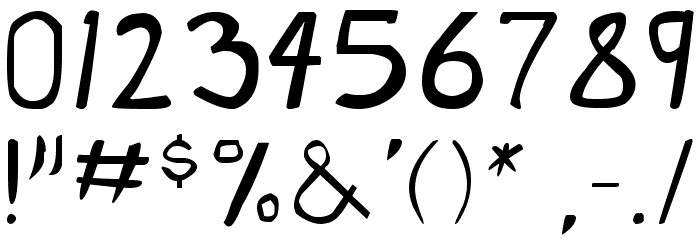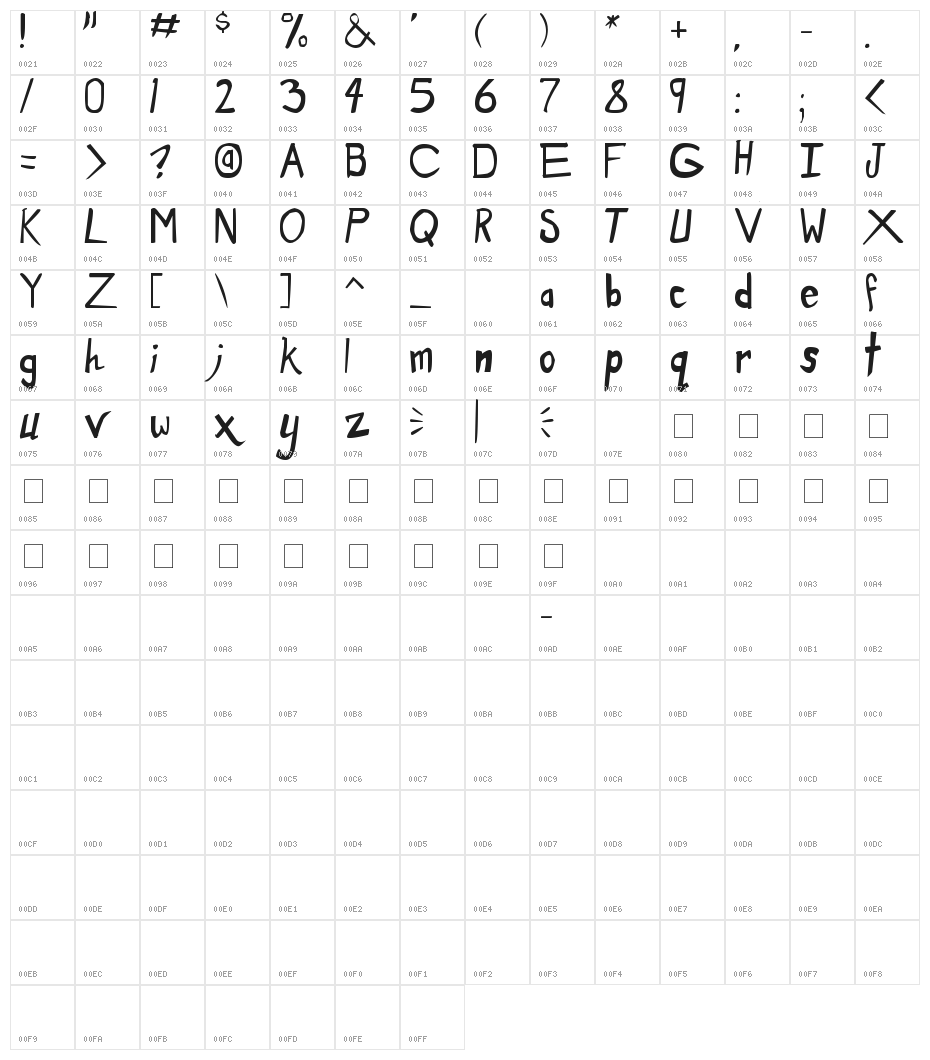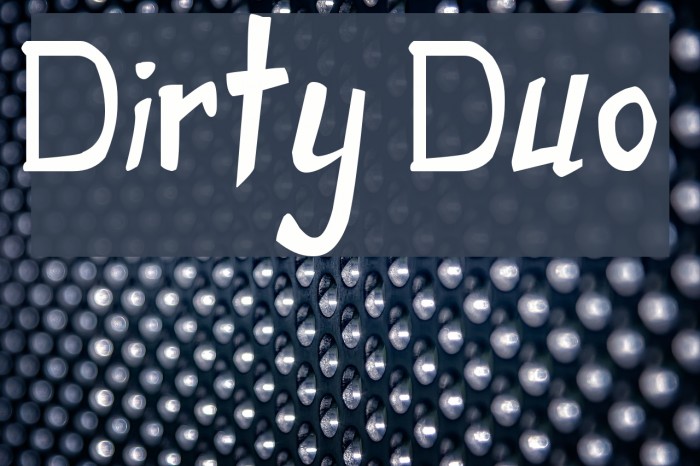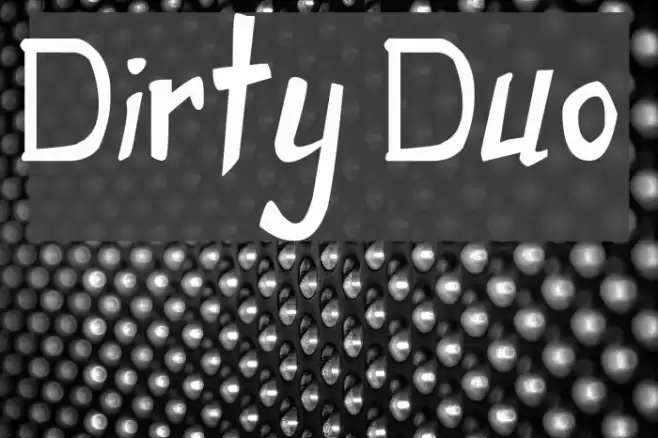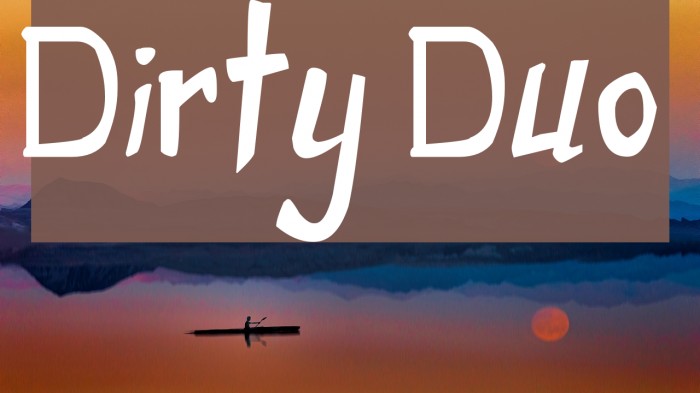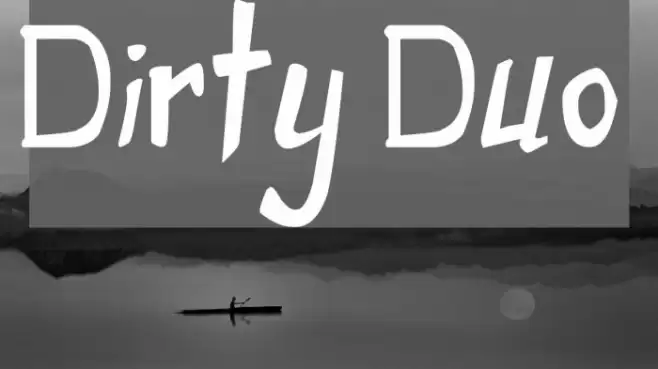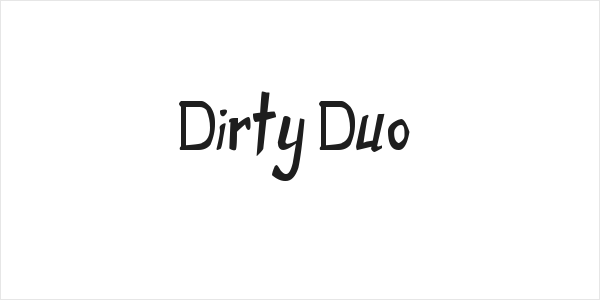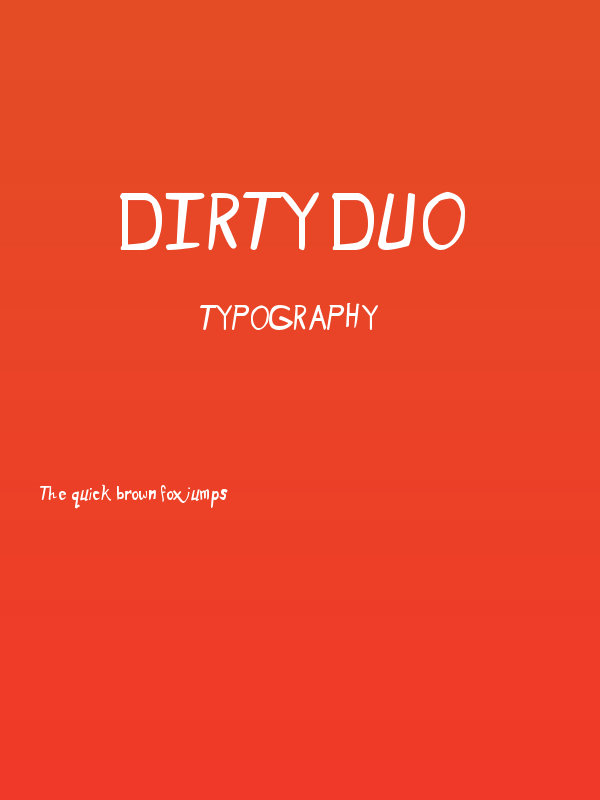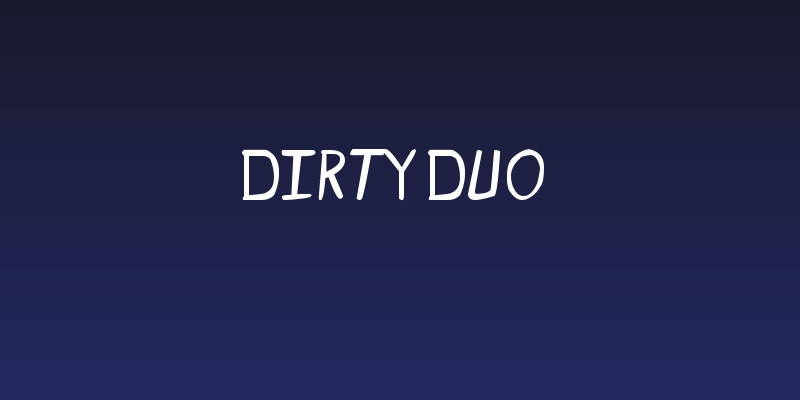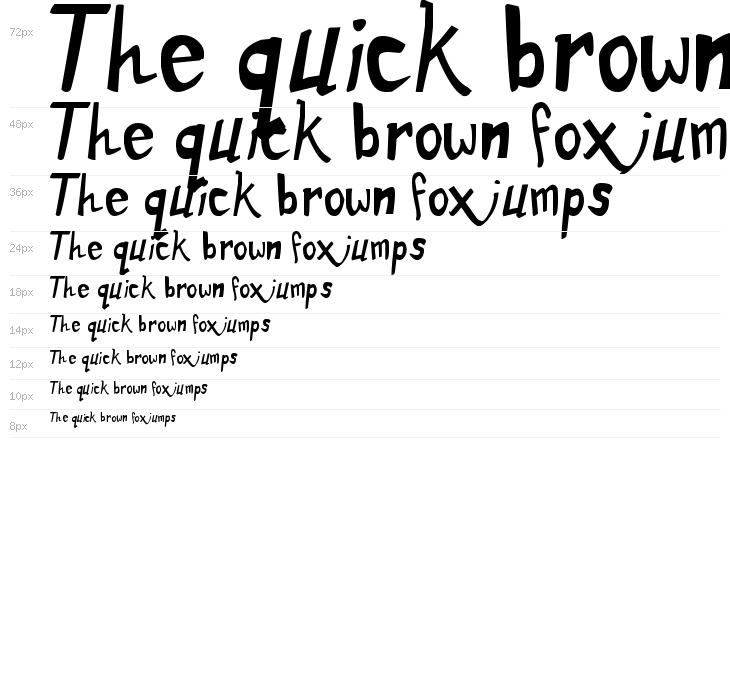
Dirty Duo Font
Dirty Duo Description
This font features a playful and quirky handwritten style, characterized by its irregular and dynamic letterforms. The uppercase letters are bold and slightly uneven, giving a sense of spontaneity and energy. The lowercase letters maintain this whimsical feel, with varying stroke thicknesses and playful curves. Numbers and special characters follow the same lively aesthetic, making the font suitable for creative and informal designs. The overall appearance is casual and artistic, perfect for projects that require a personal touch.
Use CaseLogos, Headlines, Informal Text
Proposed ProjectsIdeal for greeting cards, children's books, playful branding, and creative posters.